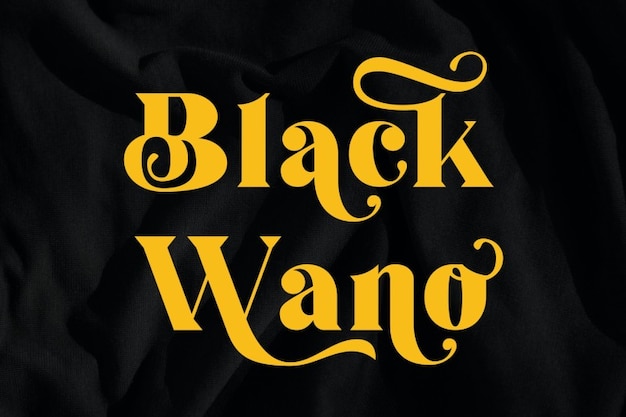
Black Wano
Black Wano Font
Black Wano is a font that masterfully combines the art of modern elegance with decorative charm. Its characters are adorned with intricate details that exude sophistication, making it the perfect choice for a wide range of creative projects. Whether you're working on branding, invitations, or any design endeavor that demands a touch of refined style, Black Wano effortlessly adds a dash of contemporary grace to your text. This font captures the essence of modern design, enhanced with decorative elements, making it an ideal option for those who appreciate the power of elegant and timeless typography.
Black Wano Regular (400)